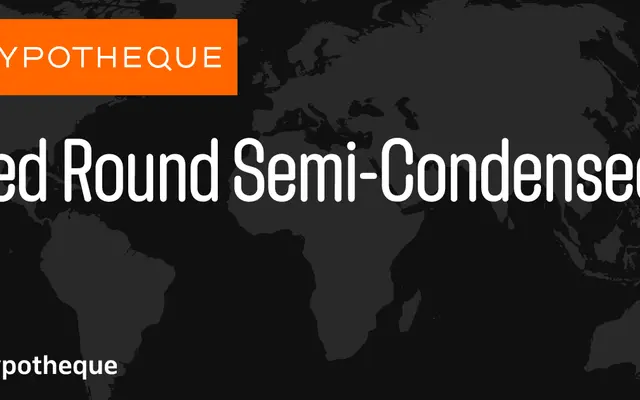
Zed Round Semi-Condensed
Zed Round Semi-Condensed specimen from Typotheque
One width variant within Typotheque's vast Zed system, offering rounded terminals across nine weights with upright, slanted and backslanted cuts.
Zed Round Semi-Condensed is part of Typotheque's Zed system, a sprawling type family spanning Display, Round and Text subfamilies across nine width variants from Extra-Compressed to Extra-Wide. The Round subfamily applies softened, rounded terminals to the geometric skeleton, and each weight is available in upright, slanted and backslanted versions, with styles named after cities from Amsterdam to Zaragoza. The scale and consistency of the system makes it well-suited to identity and environmental design work requiring tight visual cohesion across varied formats.
Part of the extensive Zed system, Zed Round Semi-Condensed sits within a large variable display family offering rounded terminals across a wide range of widths; its display orientation and geometric construction place it firmly in the display/geometric sans category.